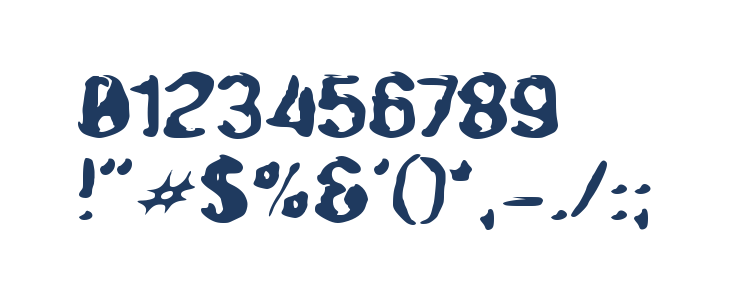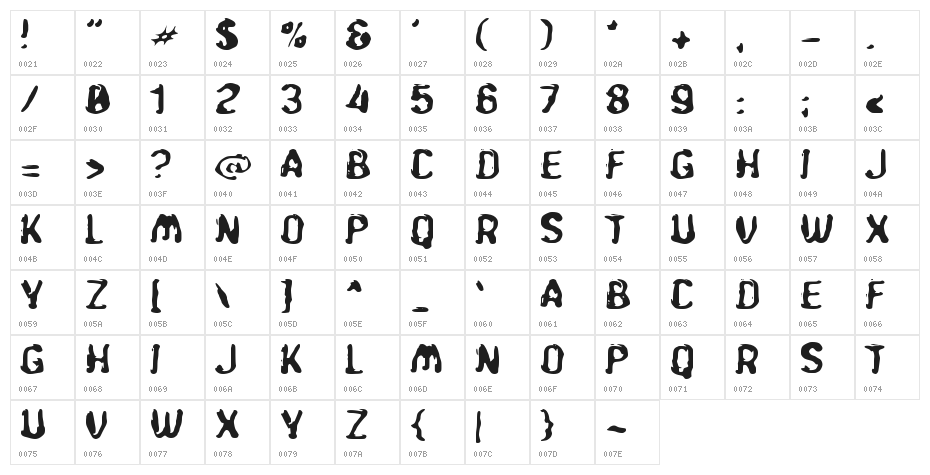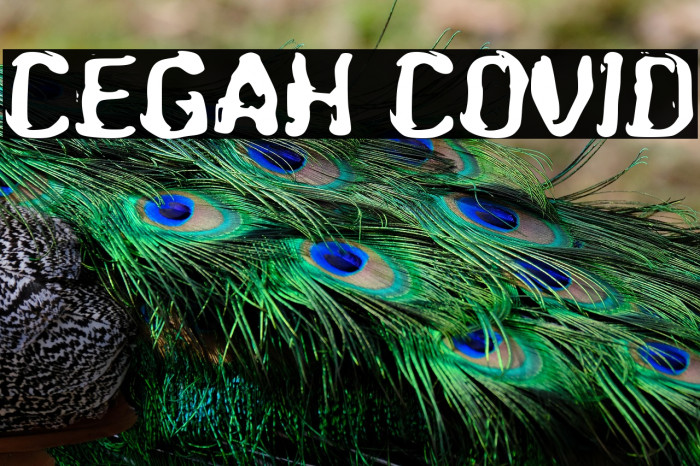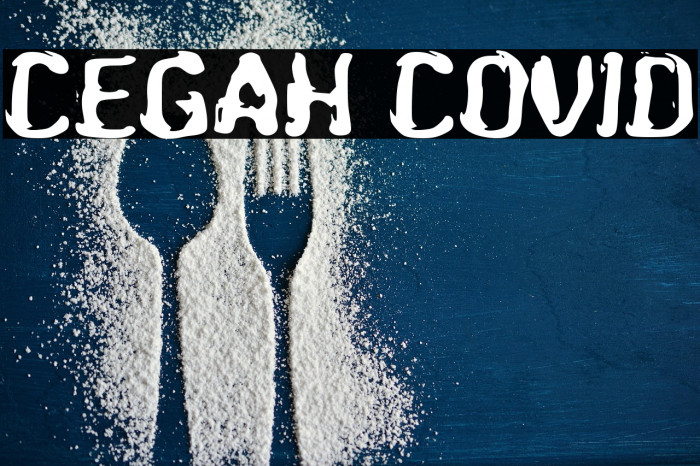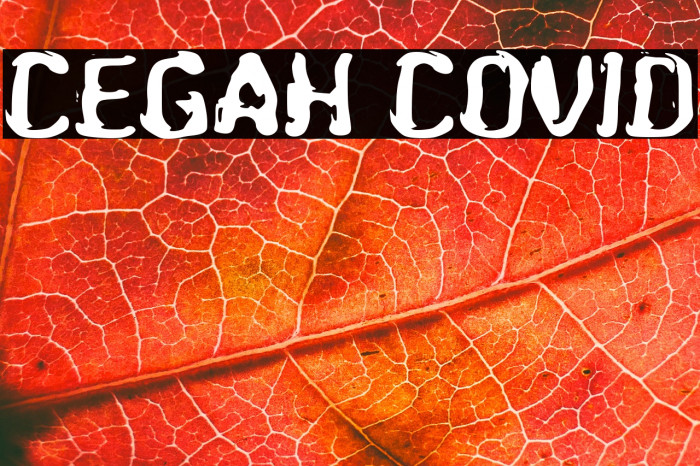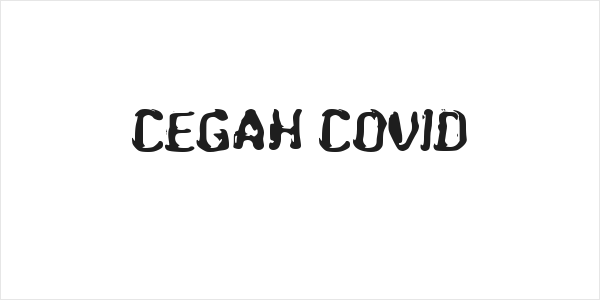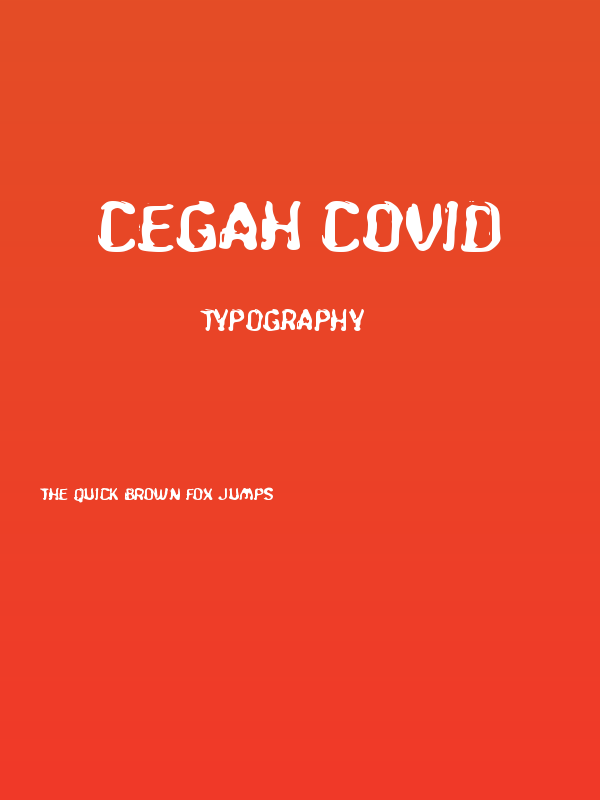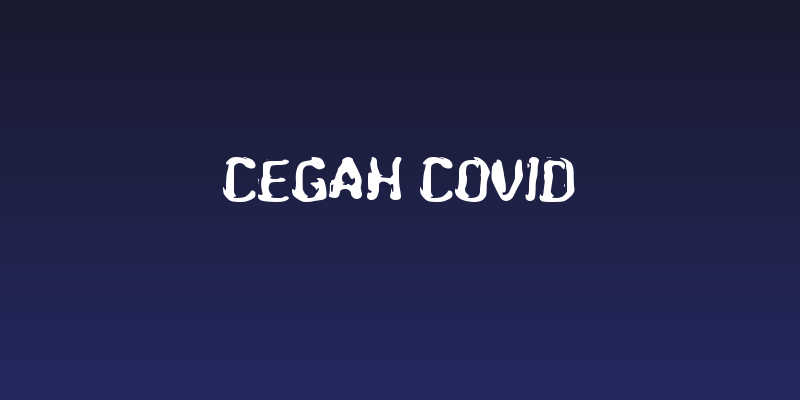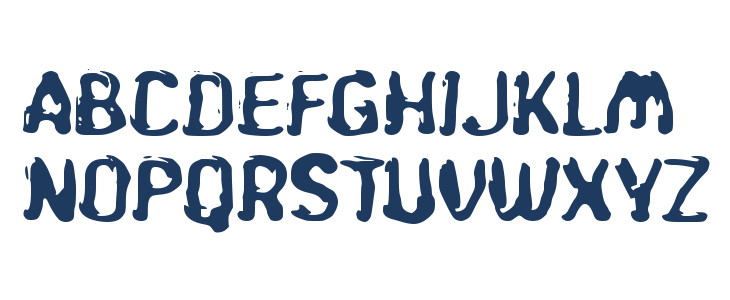
Cegah Covid Font
Cegah Covid Description
This font features a bold and artistic style with a hand-painted appearance. The characters are irregular and organic, giving a sense of movement and energy. The strokes are thick and uneven, with a playful and dynamic feel. The uppercase and lowercase letters maintain a consistent style, while the numbers and special characters complement the overall design. This font is ideal for projects that require a unique and eye-catching look, such as posters, album covers, or creative branding.
| Proposed Projects | Ideal for creative projects like posters, album covers, and unique branding. |